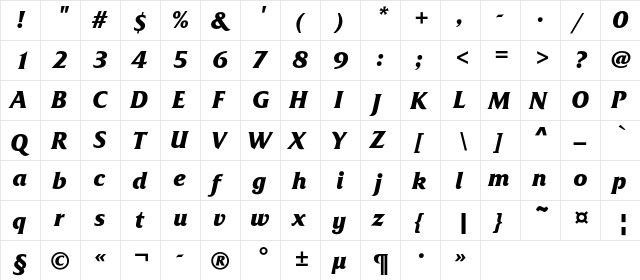
FrizQuadrataC Bold Italic Font Preview
FrizQuadrataC Bold Italic
Design Context for FrizQuadrataC Typeface
FrizQuadrataC offers clean, dependable letterforms without strong stylistic allegiance, making it a practical choice for designers who need flexibility. Its italic angle brings a sense of urgency and motion to the letterforms. The heavy weight commands attention and anchors typographic hierarchies.
Pro Tip: Use FrizQuadrataC for emphasis, pull quotes, and subheadings where its slanted energy can add rhythm to the layout.